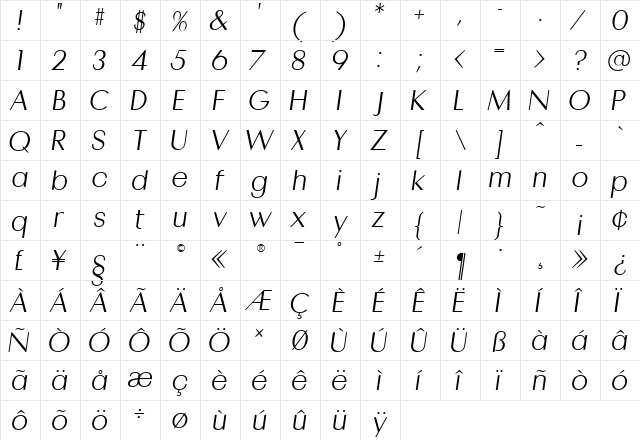
OLRadiant Regular
Design Context for OLRadiant Typeface
OLRadiant offers clean, dependable letterforms without strong stylistic allegiance, making it a practical choice for designers who need flexibility.
Pro Tip: Pair OLRadiant with a font of contrasting weight or personality to build a more expressive typographic hierarchy.